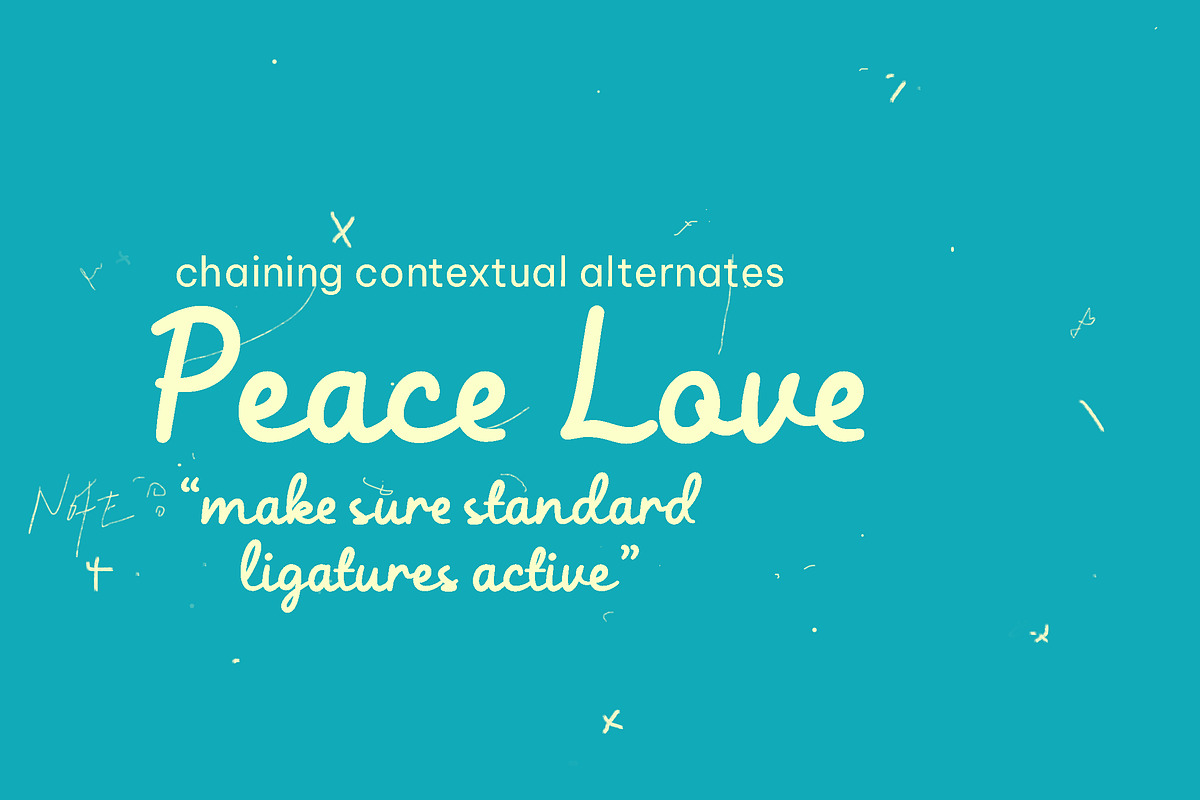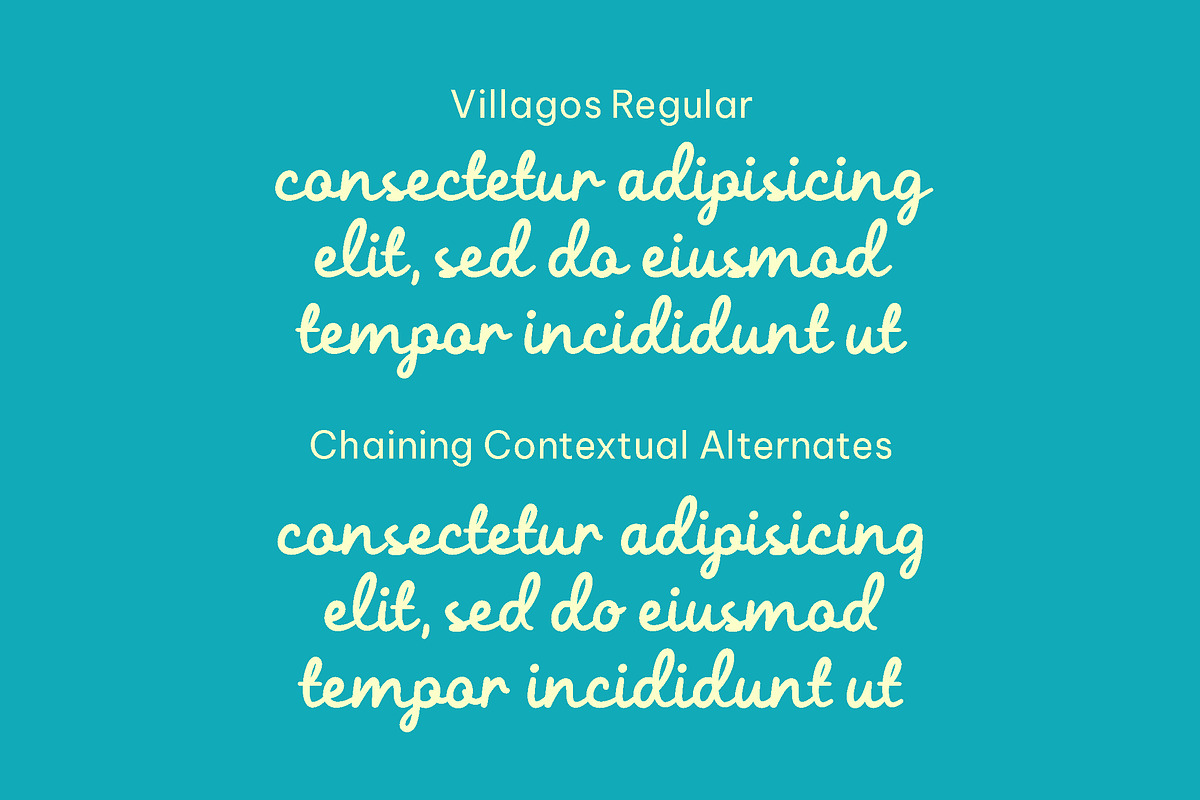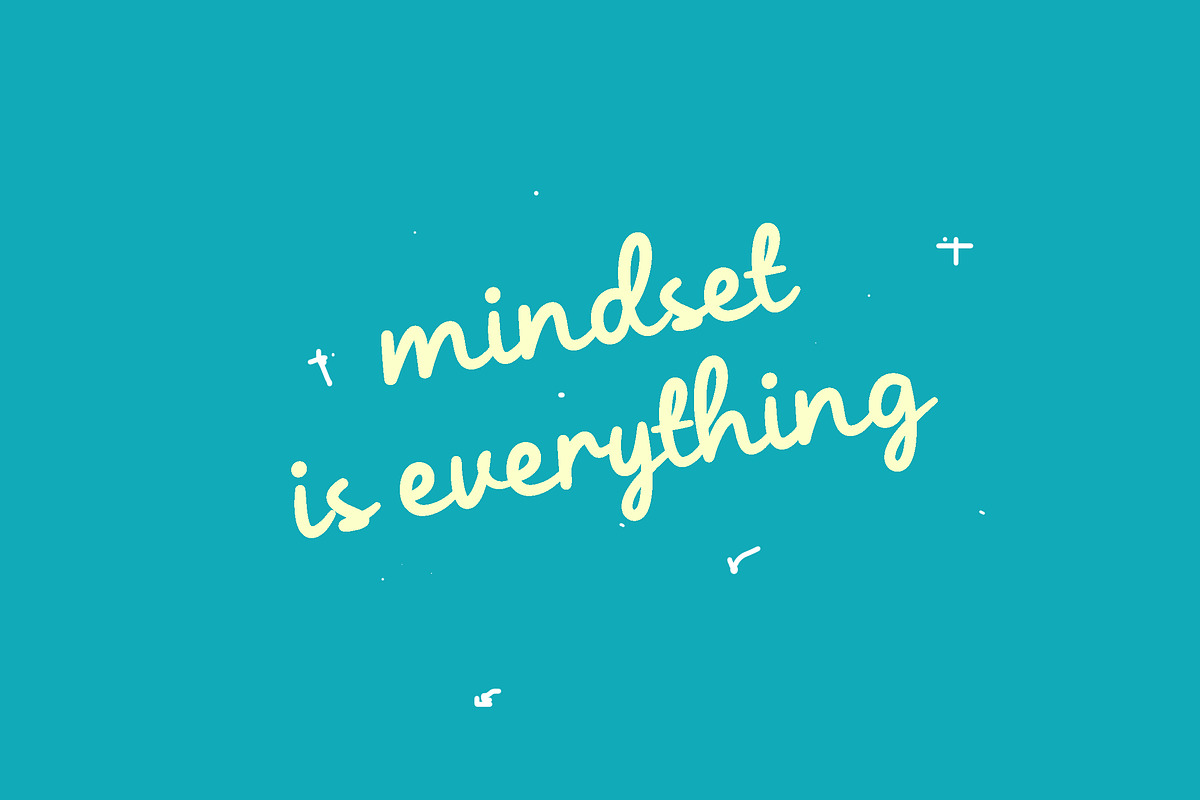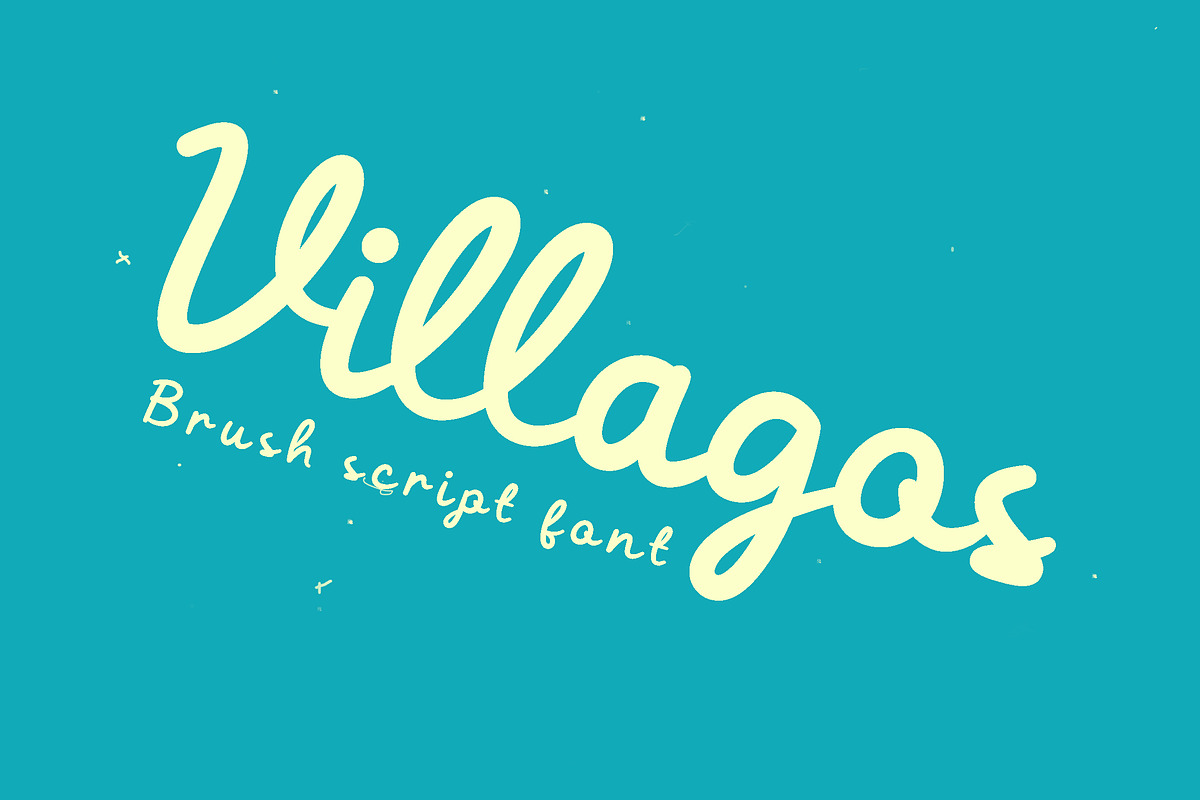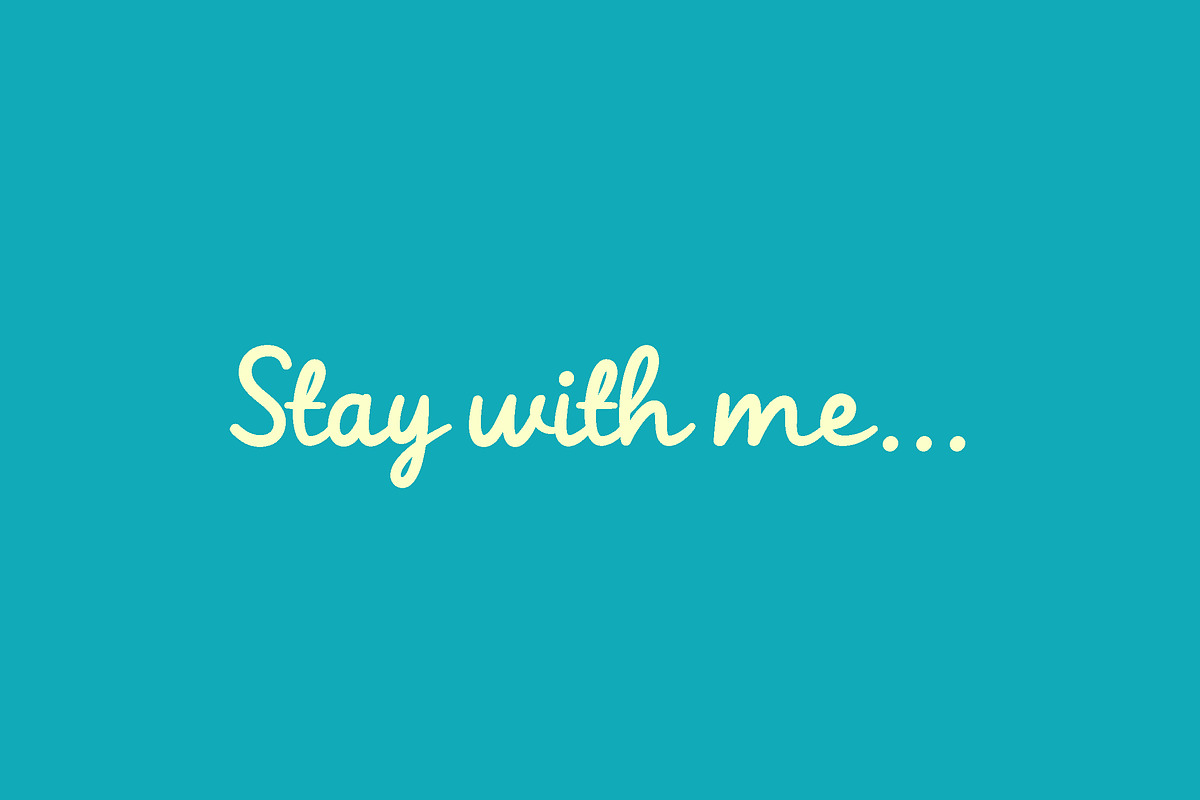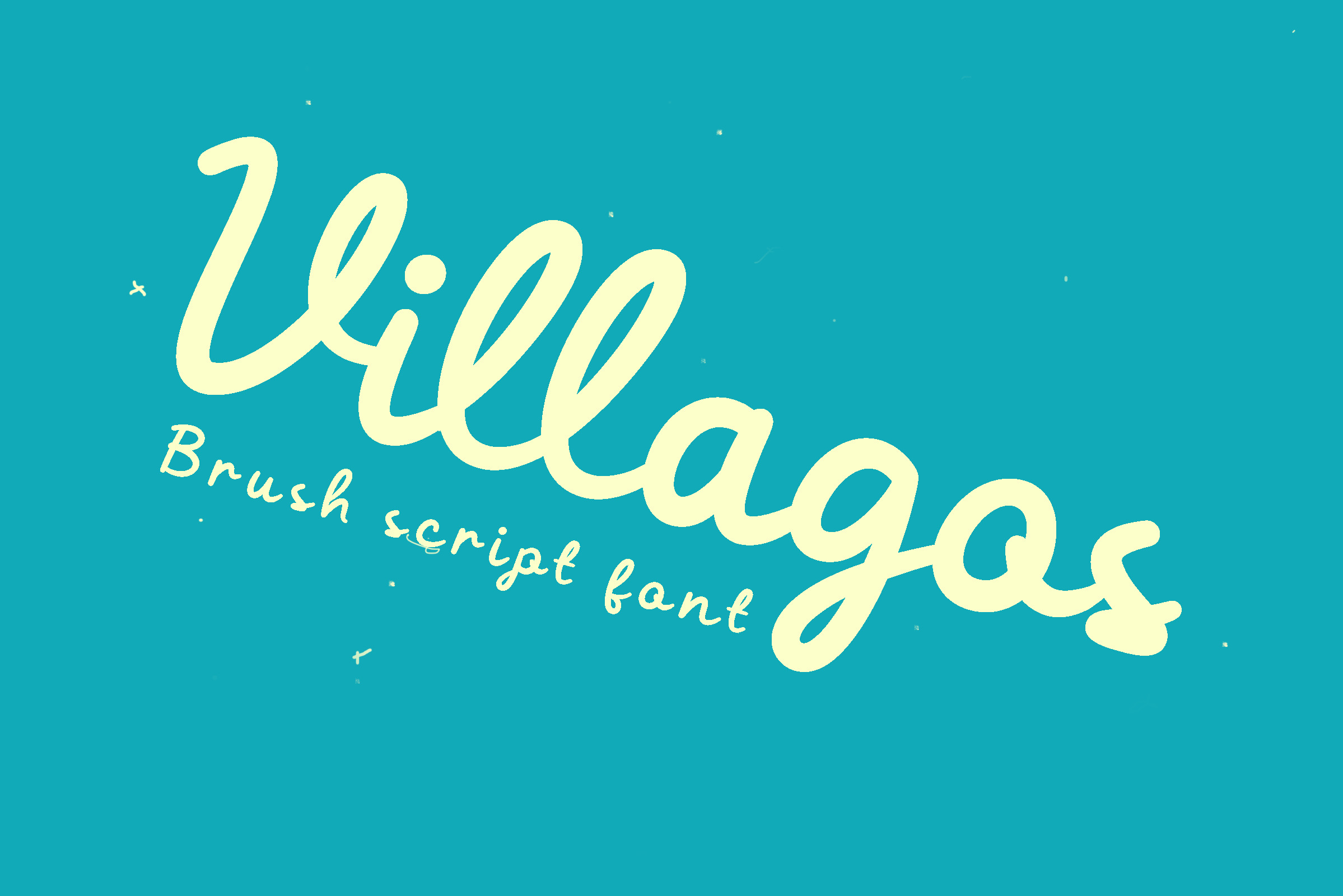
Villagos - Brush script font
Villagos font is a captivating handwritten brush script font that exudes a sense of free-spirited elegance. This font brings a touch of personal charm to any project. This font has features chaining contextual alternates. so the tail of the last lowercase letter is automatically truncated.